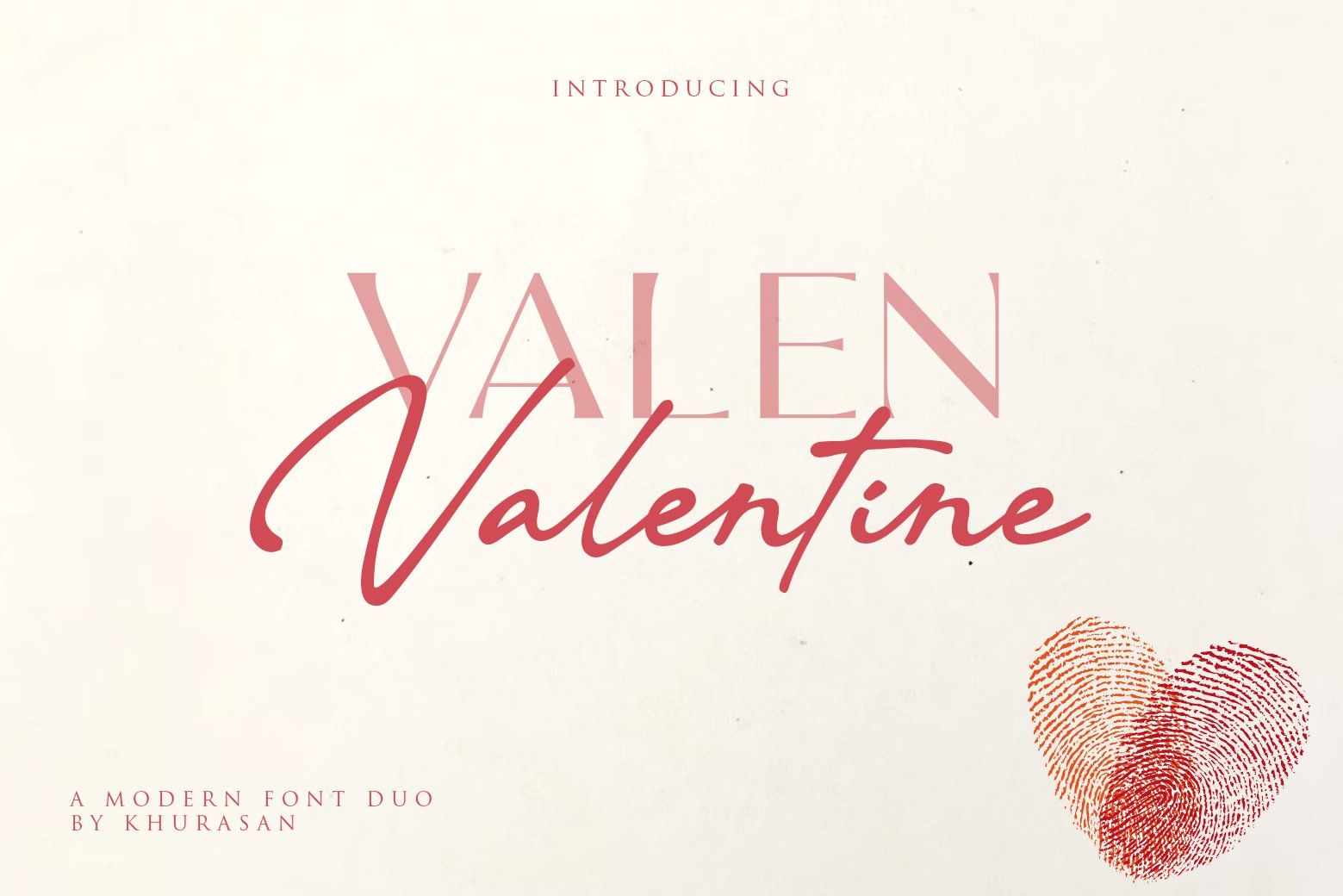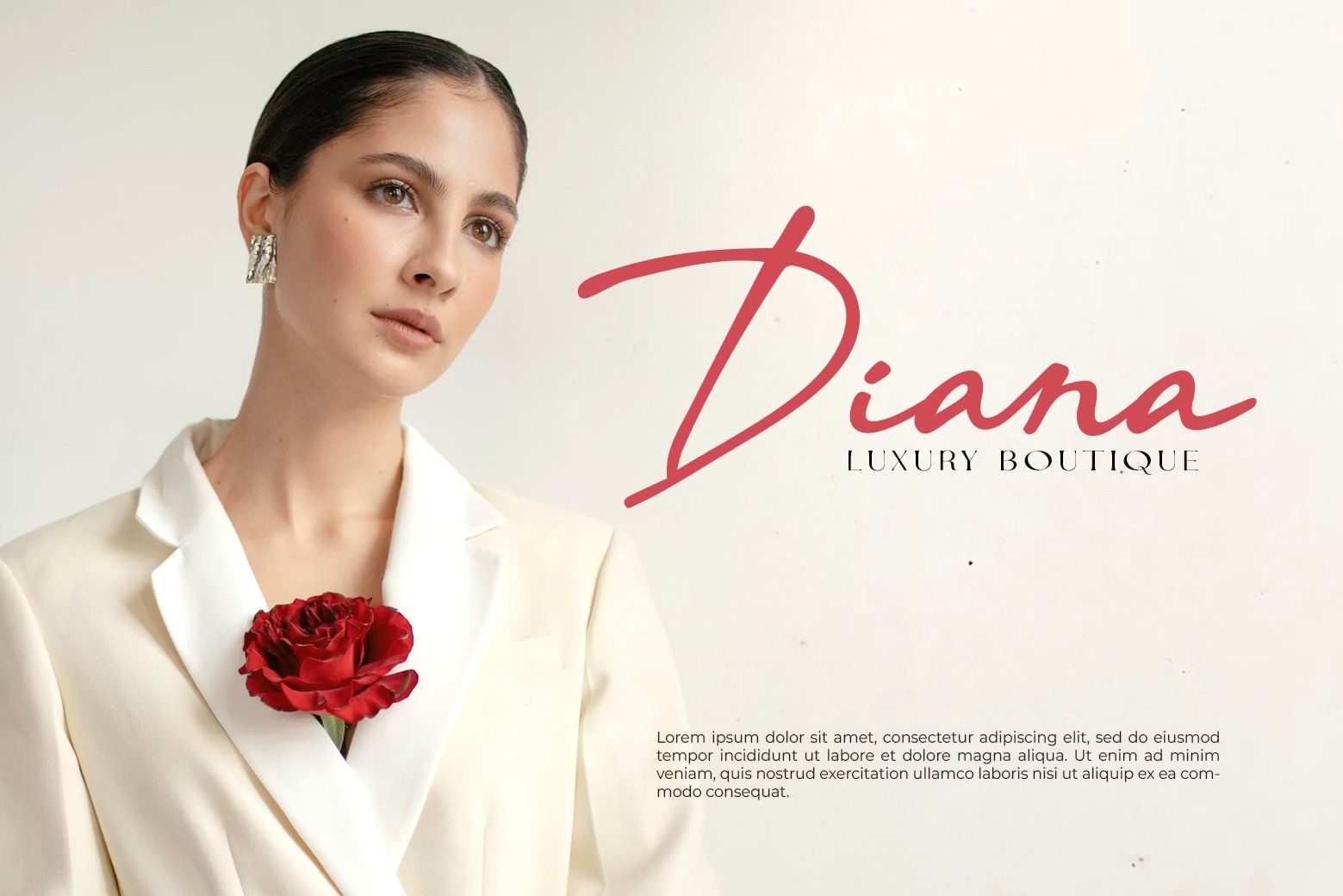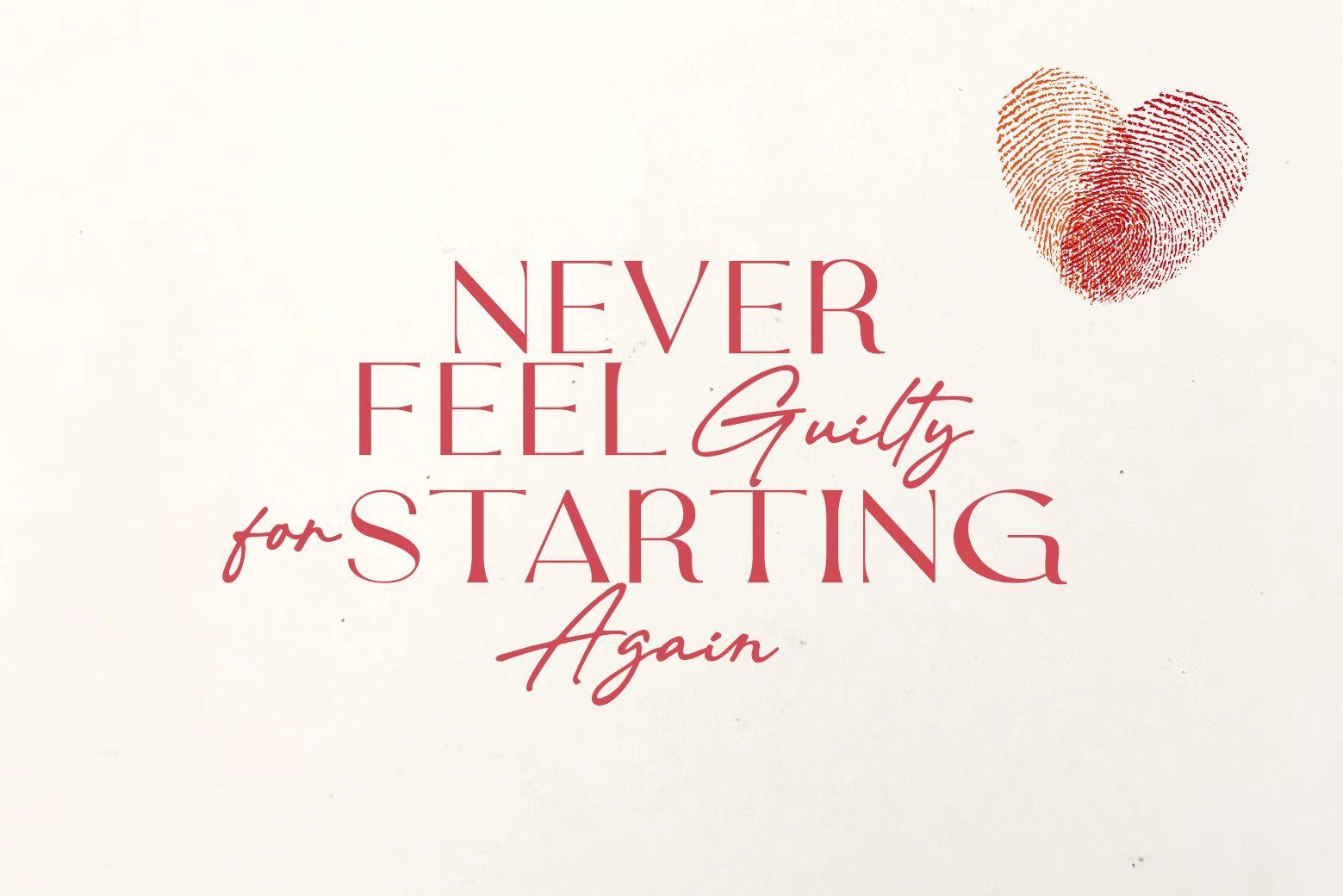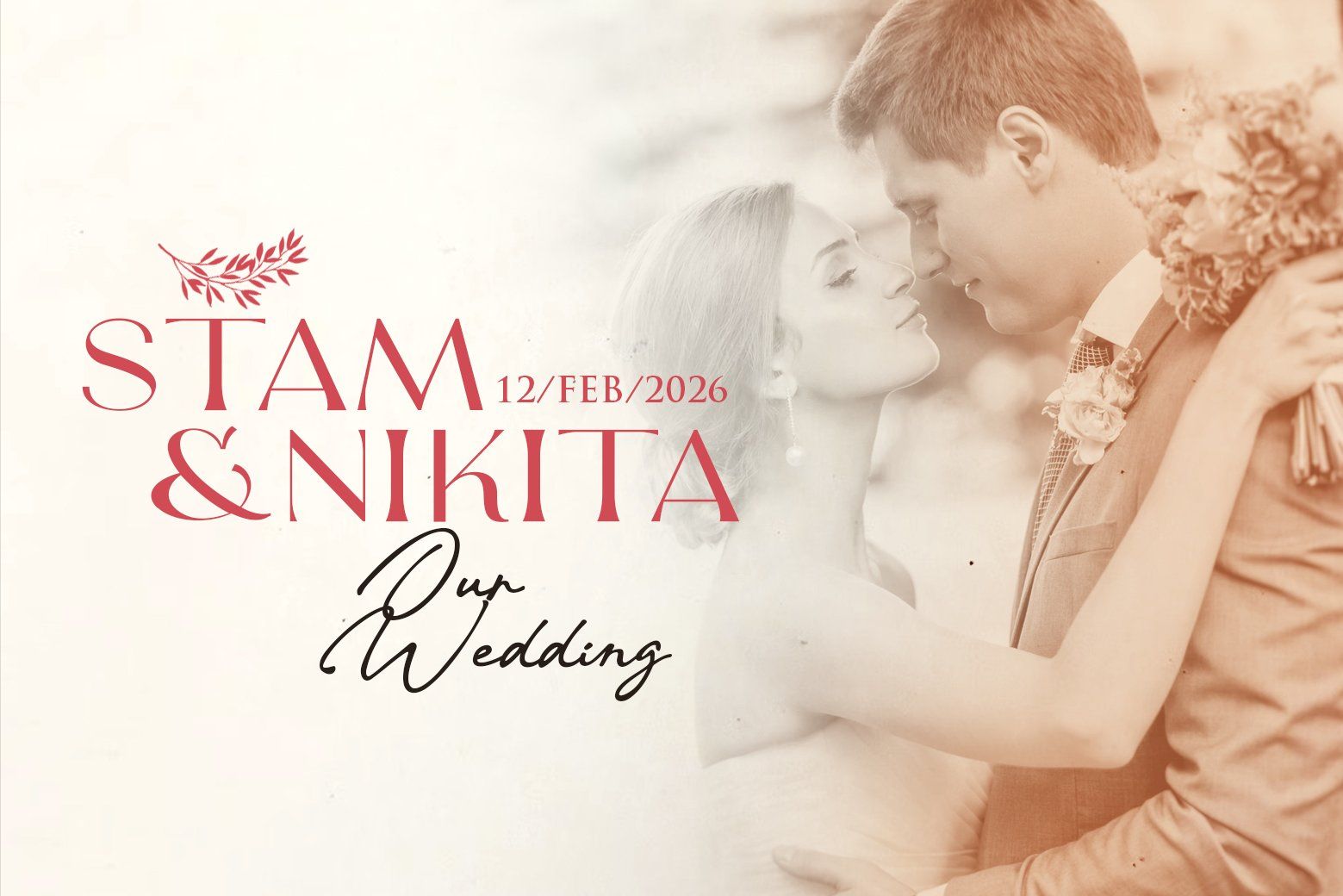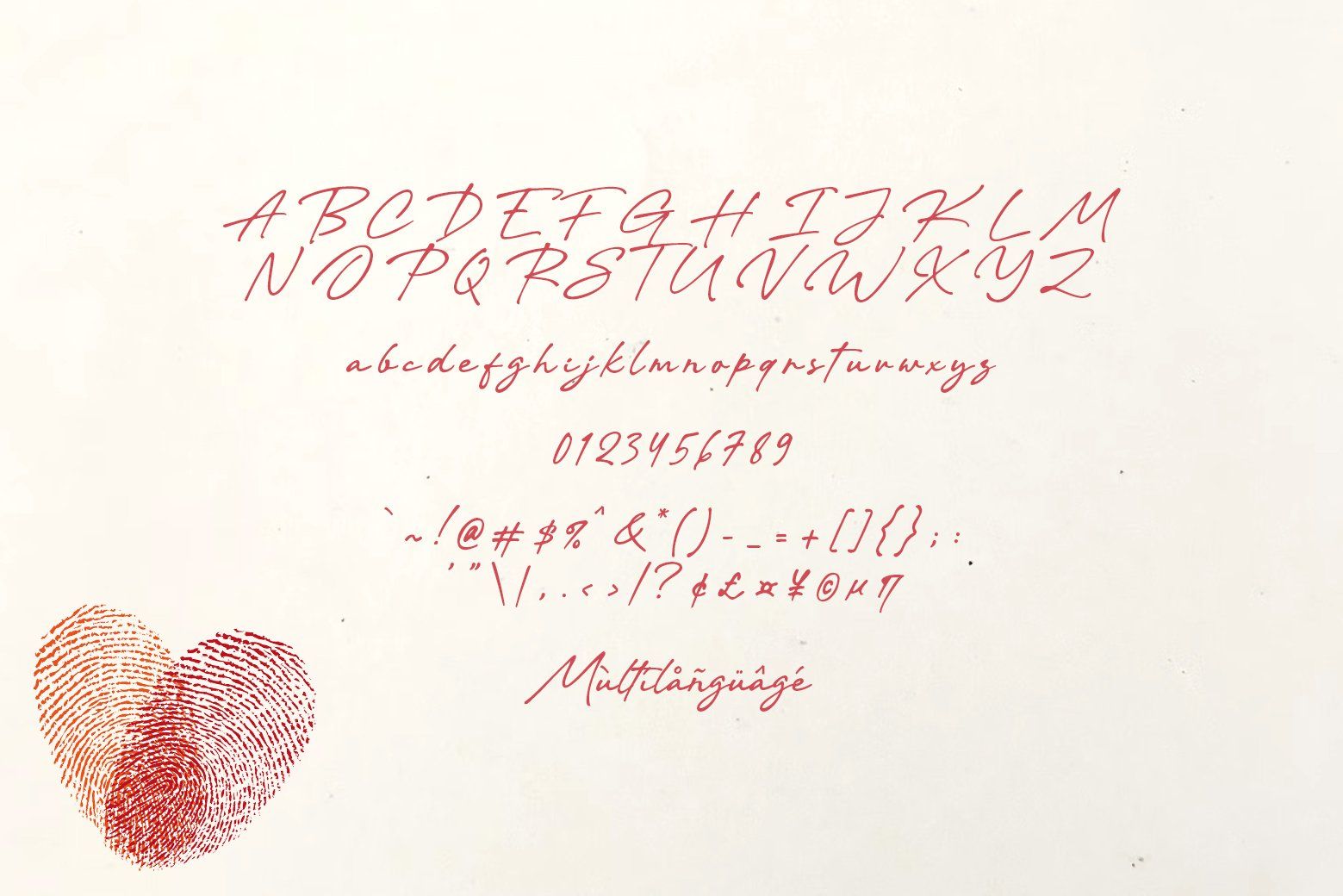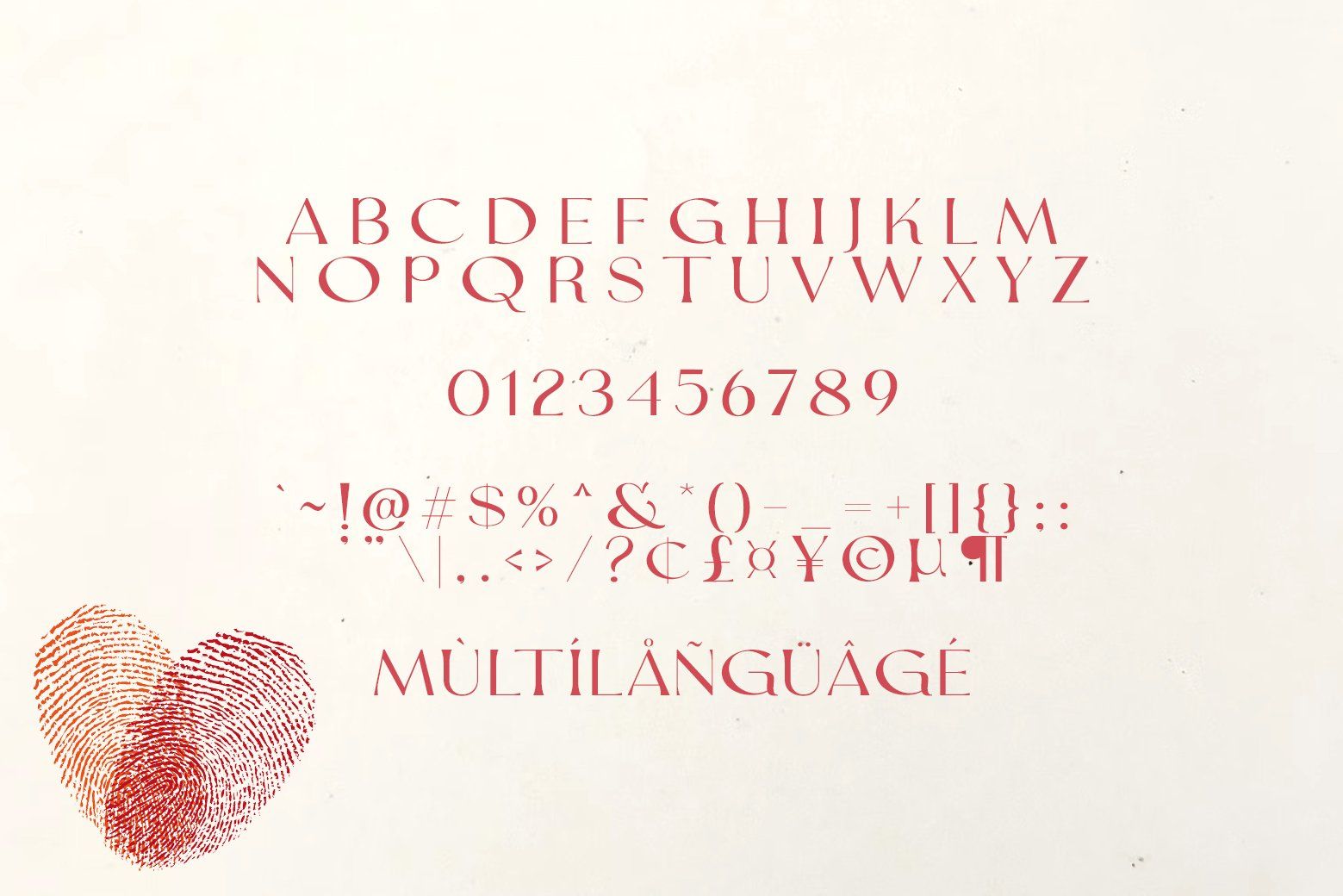
Fall in love with Valen Valentine — a romantic font duo crafted to capture hearts through elegant letterforms.
This enchanting collection pairs a graceful script that flows like handwritten love notes with a clean, modern serif that brings perfect balance and clarity. Together, they create harmonious typography that feels warm, intimate, and utterly unforgettable.
Perfect for wedding invitations, Valentine's Day cards, romantic branding projects, social media quotes, and love-themed packaging designs. Valen Valentine infuses every project with passion and charm that instantly connects with viewers' hearts.